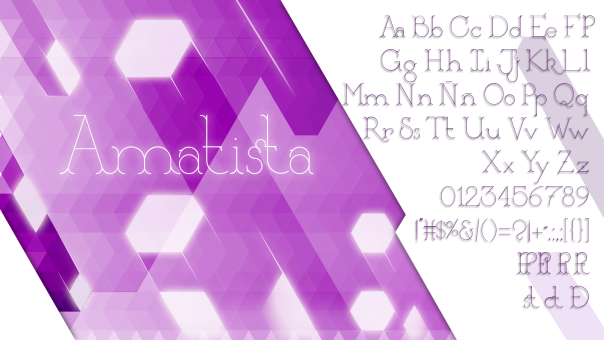
Amatista
Amatista i´ts a display font, elegant, and geometris with curve terminals like serif. Designes to work in sizes of 14 pts and up.
Designer: Silverio Contreras